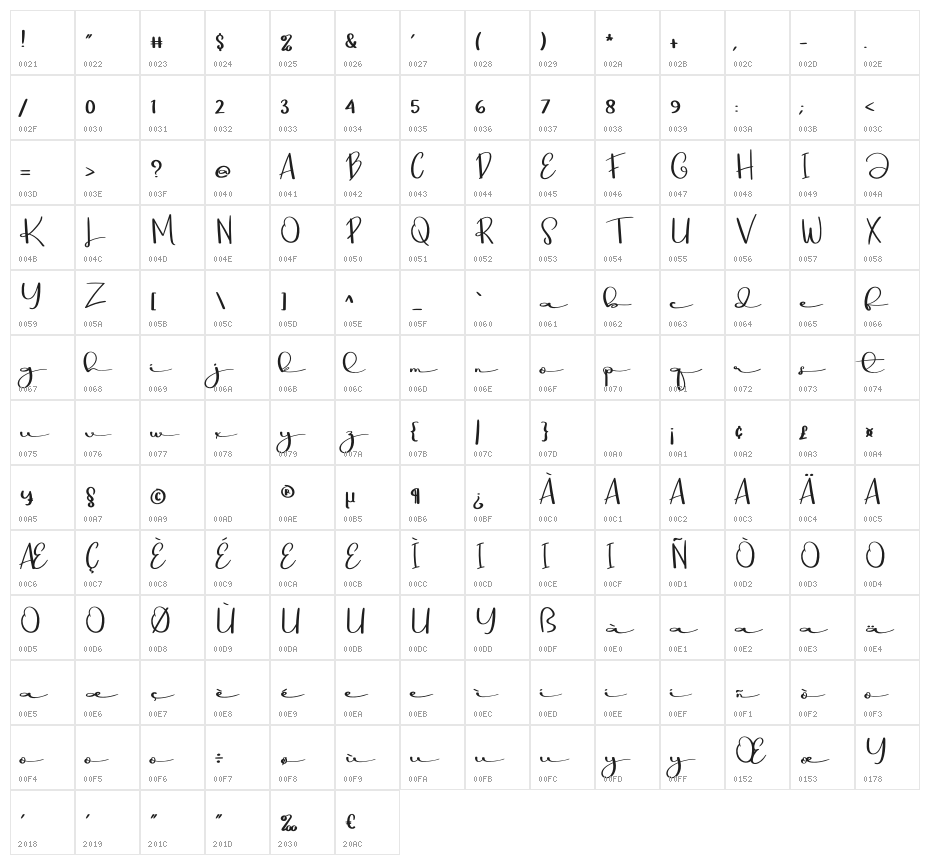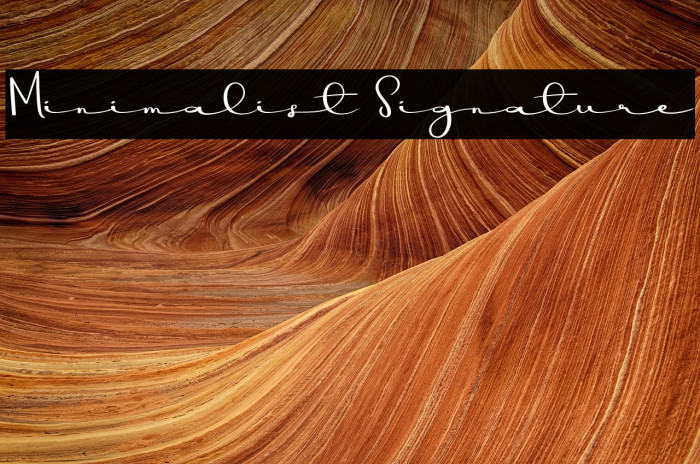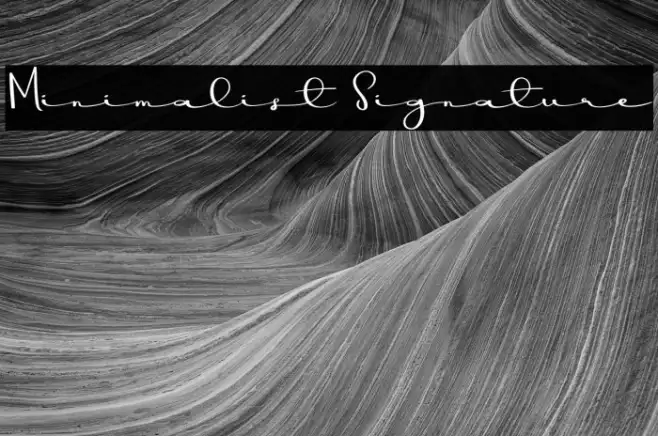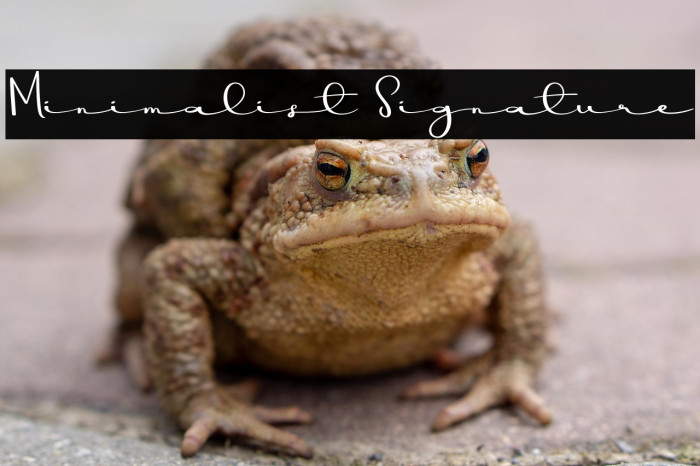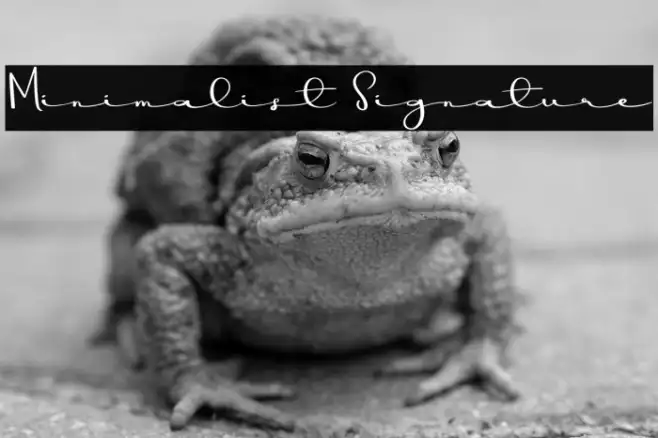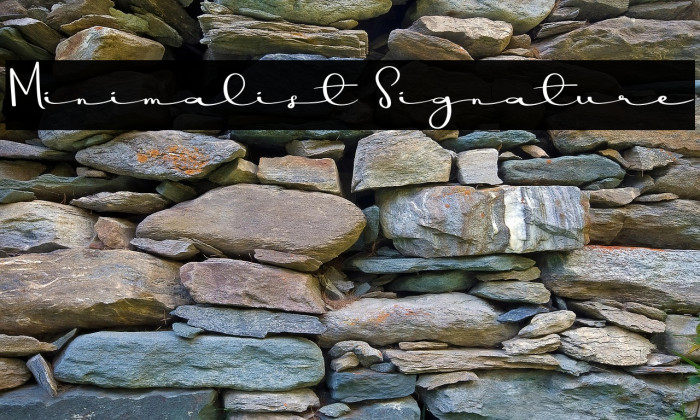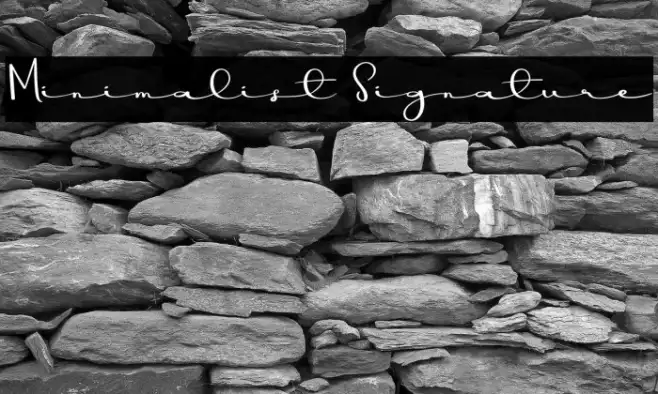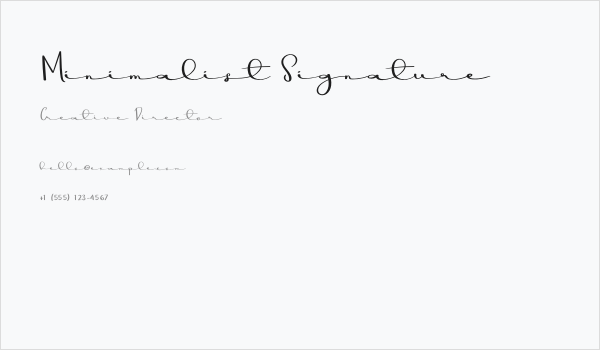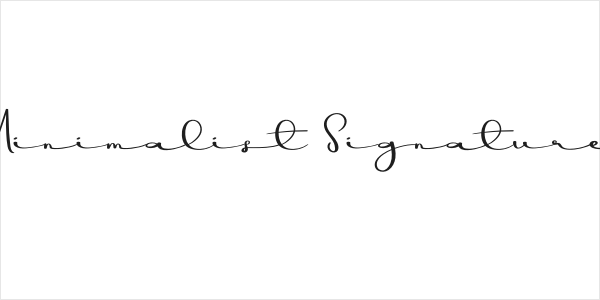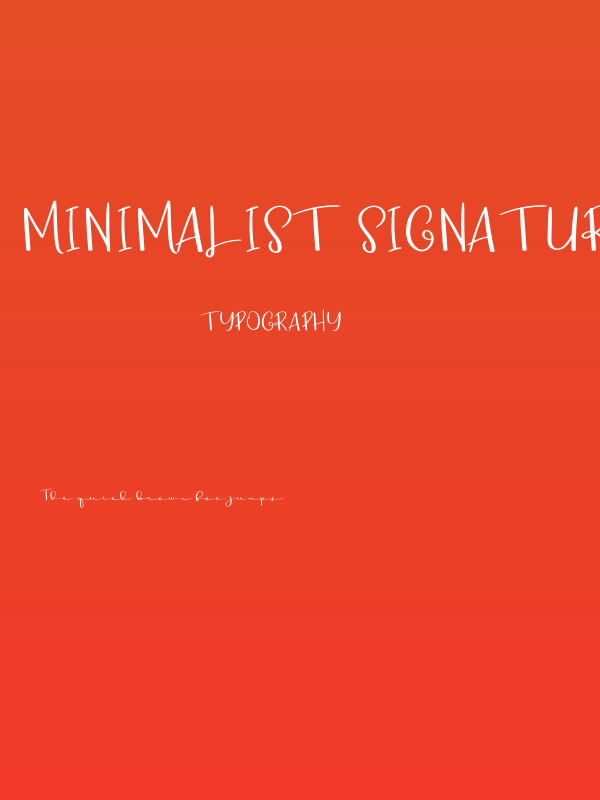
Minimalist Signature Font
Minimalist Signature Description
This font features a unique blend of bold uppercase letters and elegant, flowing lowercase script. The uppercase characters are bold and slightly irregular, giving a playful yet sophisticated feel. In contrast, the lowercase letters are connected in a smooth, cursive style, resembling a handwritten signature. The numerals are bold and clear, maintaining the playful aesthetic of the uppercase letters. Special characters are included, matching the overall style with a touch of whimsy. This font is perfect for projects that require a personal, artistic touch while maintaining readability.